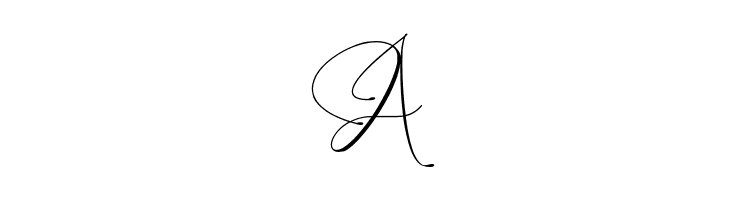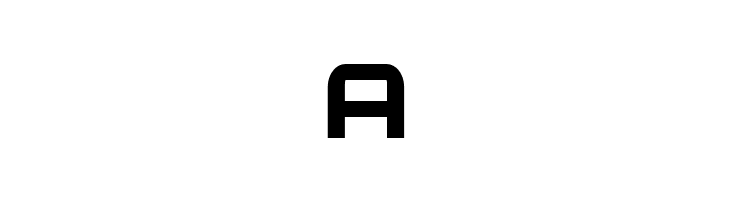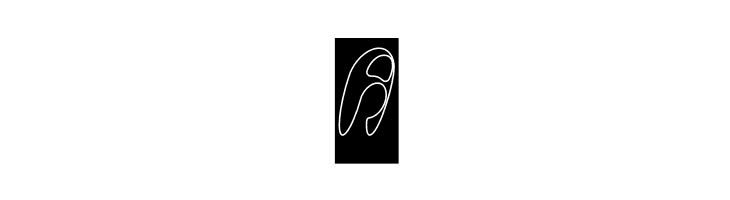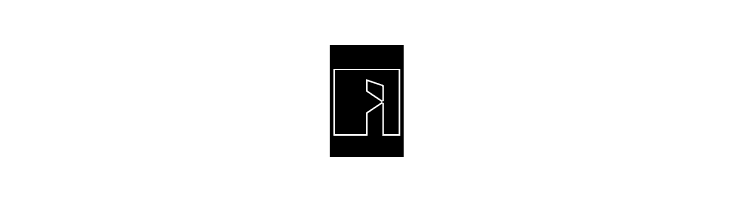
• emobot
• EmoO
• Emotion Italic
A bold, italicized display font with a 3D effect and textured interior.
• Emotion Regular
A bold, decorative font with a three-dimensional, textured style.
• Emotion Straight Italic
A bold, 3D-effect italic font with rounded characters and dynamic style.
• Emotion Straight Regular
A bold, 3D decorative font with a gradient fill and thick outlines.
• EmparioArmani
An elegant and sophisticated script font with flowing, cursive letterforms.
• Empathy
A graceful and flowing script font with elegant, connected letters.
• Empathy Sans
A tall, narrow, and modern sans-serif font with clean lines and rounded edges.
• EMPEROROFJAPAN
A bold, geometric font with a futuristic and innovative design.
• EMPEROROFJAPAN-Bold
A bold, geometric font with a futuristic and modern aesthetic.
• EMPEROROFJAPAN-Italic
A bold, geometric, and italic font with a modern flair.
• EMPEROROFJAPANHollow
A bold, hollow font with rounded, geometric shapes for a futuristic look.
• EMPEROROFJAPANHollowInverse
A hollow, geometric font with a futuristic and playful style.
• EMPEROROFJAPANInverse
A bold, geometric font with high contrast and artistic negative space.
• EMPEROROFJAPANLight
A bold, geometric font with a futuristic and decorative style.
• Empty Space Regular
A bold, geometric font with a futuristic and decorative style.
• Empyrean Medium
• Emynam Crew Regular
A bold, geometric font with a modern and artistic style.
• enchantee